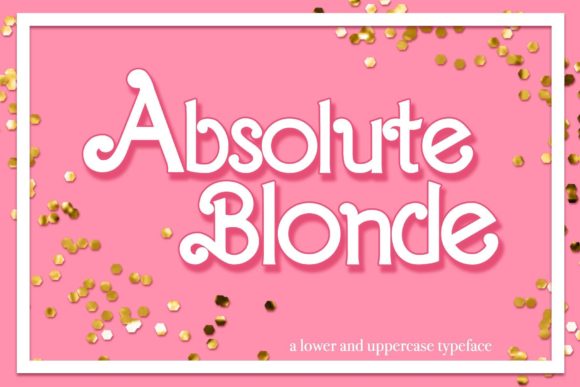
Introducing Absolute Blonde Font, the ultimate choice for all your creative endeavors! This sweet and distinct display font is designed to captivate and inspire, making it the best font for kids invitations. Created by TheGGShop, this font is sure to add a touch of whimsy and charm to any project.
With its friendly feel, Absolute Blonde Font is incredibly versatile, seamlessly fitting into a wide range of contexts. Whether you're designing birthday invitations, party flyers, or crafting personalized gifts, this font is the perfect companion. Let your imagination run wild and watch as your creations come to life with a touch of magic!
Absolute Blonde Font is more than just a font - it's an experience. Each letter has been carefully crafted to evoke emotions of joy, excitement, and wonder. Its whimsical curves and playful strokes will transport you to a world of endless possibilities. Say goodbye to dull and ordinary designs, and say hello to an extraordinary visual journey!
But don't just take our word for it - try Absolute Blonde Font for yourself and witness the transformation. It will effortlessly elevate your designs, making them impossible to ignore. Imagine the smiles on children's faces when they receive an invitation adorned with this enchanting font. It's not just a font; it's a gateway to unforgettable moments.
With Absolute Blonde Font, the power to create unforgettable designs is in your hands. From birthday parties to baby showers, every occasion becomes a celebration of creativity. Stand out from the crowd and leave a lasting impression with this captivating font.